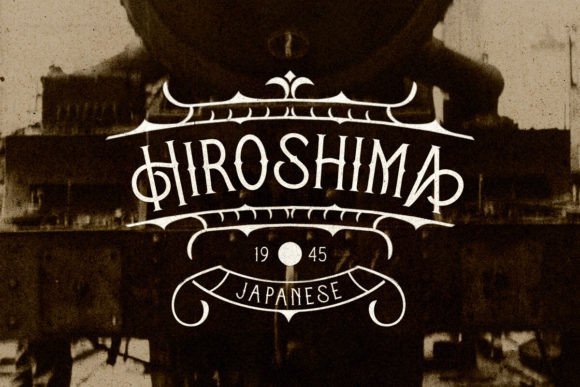
Black letter Font / FontsBest Architoria Font Download 25/02/202527/02/2025 - by Awais Farooq Architoria is a blackletter font that has a vintage Victorian style. You can use this font for projects that need a vintage and old look such as poster, logotype, branding and so much more. Related Posts:Spherical Victorian Jar Mockup PackNostalgic Font and Label Collection Old Vintage Victorian FontBest Montern Font Free DownloadThe Best Bubble FontGaming Laptop Mockup DownloadNasty Habit Font DownloadLong Rectangle Chocolate Box MockupAshtray Round MockupThis is Proxima NovaBinger Font DownloadMetal Can Packaging Mockup Set DownloadThe Trending Love Bubble FontLaptop Screen Display MockupThis is Cagier - Elegant Display Font